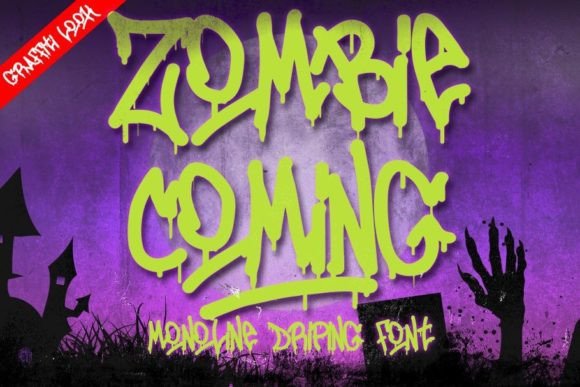
In a realm of visual expression, meet Zombie Coming – a font that personifies bold and captivating designs. This Display font, a masterpiece birthed by creative visionary Sipanji Figuree, embodies the spirit of graffiti in its monoline structure, interwoven with a tantalizing dripping effect. Each character rendered in Zombie Coming exudes a sense of untamed energy, as if they're dancing with urban artistry.
The creative possibilities with Zombie Coming are as endless as the streets themselves. Whether your design canvas is a poster, an attention-grabbing headline, an invitation that sparks the imagination, a signature made to stand out, a logo demanding recognition, or a label craving uniqueness – Zombie Coming breathes life into them all. It's the typography equivalent of a shapeshifter, adapting flawlessly to suit your designs with finesse.
Zombie Coming holds the power to embolden your designs. Unleash the avant-garde artist within you, the rebel who breaks free from the chains of ordinary fonts and dares to make a visual statement that echoes in the hearts and minds of those who behold it. Let your designs drip with attitude and swagger, leaving an unforgettable imprint.
Embrace Zombie Coming, and dive headfirst into a world where typography takes on a life of its own. This font is more than just a collection of letters; it's an expression of your artistic flair, your yearning for distinction, and your desire to make a visual splash that ripples through the world of design. Zombie Coming – the font that speaks of boldness, creativity, and the unapologetic pursuit of visual impact.